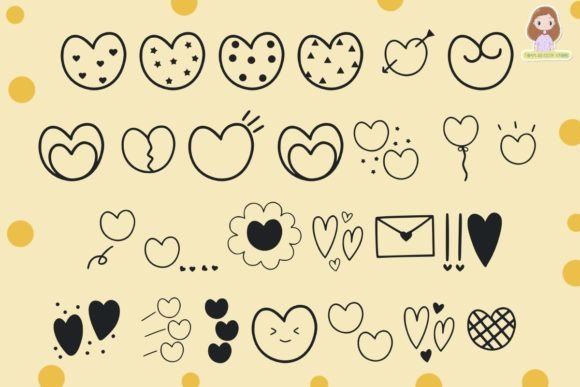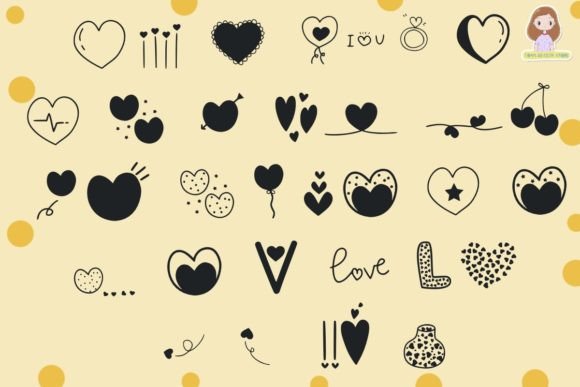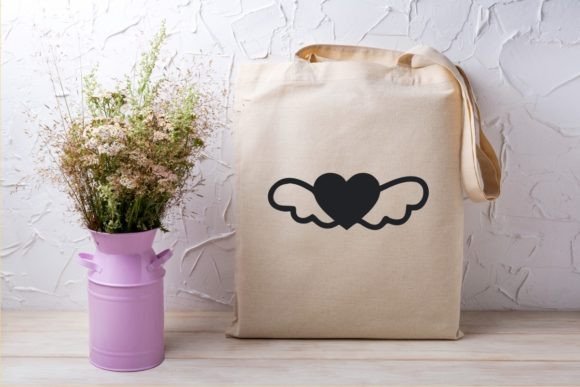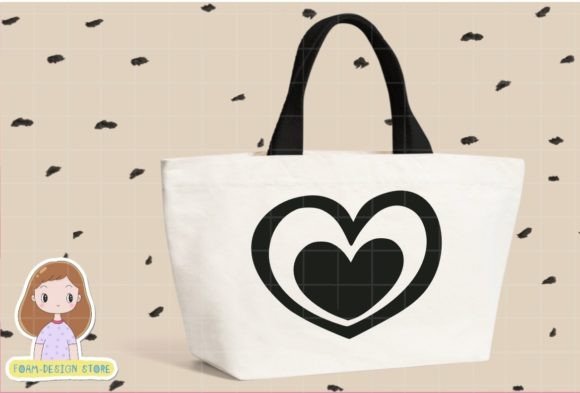
Heart Font: The Ultimate Romantic Dingbats for Designers and Crafters
Are you a designer, crafter, or digital artist looking for a unique and romantic touch to add to your creations? Look no further than the Heart Font, a beautiful hand-drawn dingbats font that can elevate your designs to the next level. In this article, we’ll explore the world of Heart Font, its features, and how you can use it to make your designs outstanding.
What is Heart Font?
Heart Font is a romantic and useful dingbats font that consists of hand-drawn heart shapes and symbols. These delightful dingbats can be used for a variety of purposes, including decorating designs, crafting, digital designing, presentations, greeting card making, and more. With its elegant and whimsical design, Heart Font is perfect for adding a touch of love and warmth to your creations.
Features of Heart Font
So, what makes Heart Font so special? Here are some of its key features:
- Hand-drawn design: Each heart symbol and shape is carefully hand-drawn, giving the font a unique and personal touch.
- Variety of heart shapes: The font includes a range of heart shapes and symbols, from classic hearts to more intricate designs.
- Versatile: Heart Font can be used for a wide range of projects, from digital designs to craft projects.
- Elegant and whimsical: The font’s design is both elegant and playful, making it perfect for adding a touch of romance to your creations.
Uses of Heart Font
So, how can you use Heart Font in your designs? Here are some ideas to get you started:
- Digital designs: Add a touch of romance to your digital designs, such as social media graphics, blog posts, and website headers.
- Crafting: Use Heart Font to create beautiful handmade cards, gift tags, and other paper crafts.
- Greeting cards: Create stunning greeting cards for Valentine’s Day, anniversaries, and other special occasions.
- Presentations: Add a touch of elegance to your presentations with Heart Font.
- Decorating plans: Use Heart Font to create beautiful decorating plans and mood boards.
Tips for Using Heart Font
Here are some tips for getting the most out of Heart Font:
- Experiment with different sizes and colors: Play around with different sizes and colors to find the perfect combination for your design.
- Combine with other fonts: Pair Heart Font with other fonts to create a unique and interesting design.
- Use as a design element: Use Heart Font as a design element, such as a border or background pattern.
- Make it 3D: Use Heart Font to create 3D designs, such as paper cutouts or sculptures.
In conclusion, Heart Font is a beautiful and versatile dingbats font that can add a touch of romance and elegance to your designs. With its hand-drawn design, variety of heart shapes, and versatility, Heart Font is perfect for designers, crafters, and digital artists. Whether you’re creating digital designs, crafting, or making greeting cards, Heart Font is sure to make your designs outstanding. So why not give it a try and see what amazing creations you can come up with?